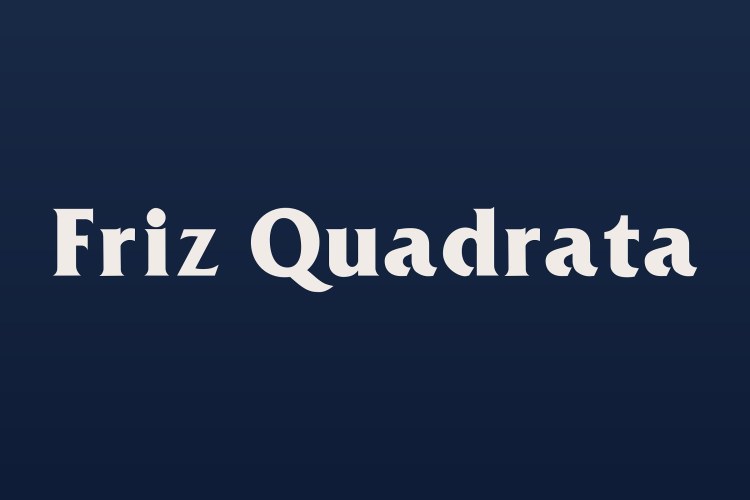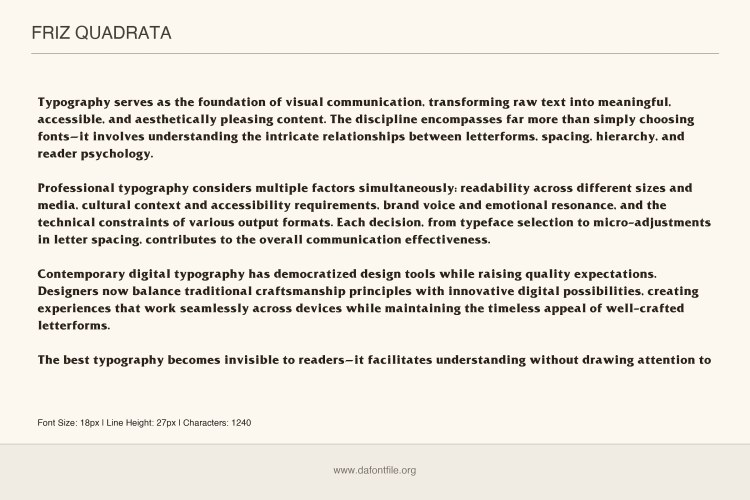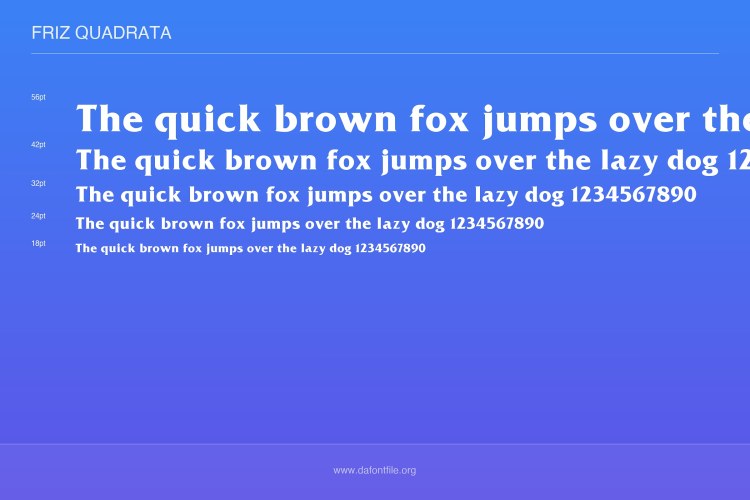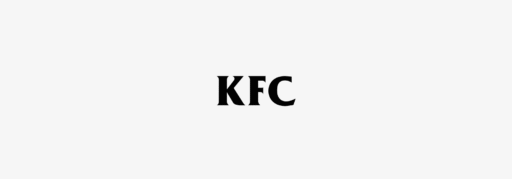
KFC Font
KFC Font takes inspiration from the bold and confident lettering of the famous fast-food brand. Its clean lines and strong shapes make it perfect for logos, packaging, p…
KFC Font takes inspiration from the bold and confident lettering of the famous fast-food brand. Its clean lines and strong shapes make it perfect for logos, packaging, posters, and branding projects. Designers use KFC Font to add a modern, recognizable, and professional touch to their work while keeping a sense of warmth and tradition.
Where KFC Font works best
KFC Font is built for size: event posters, hero headlines and billboard-style layouts.
High contrast display type like KFC Font reads instantly in thumbnails and motion graphics.
What is KFC Font good for?
KFC Font is a Display Fonts typeface tagged Bold, Branding, Clean, Display. It works well for headlines, logos, posters, social media graphics and branding projects that need a distinctive display fonts look.